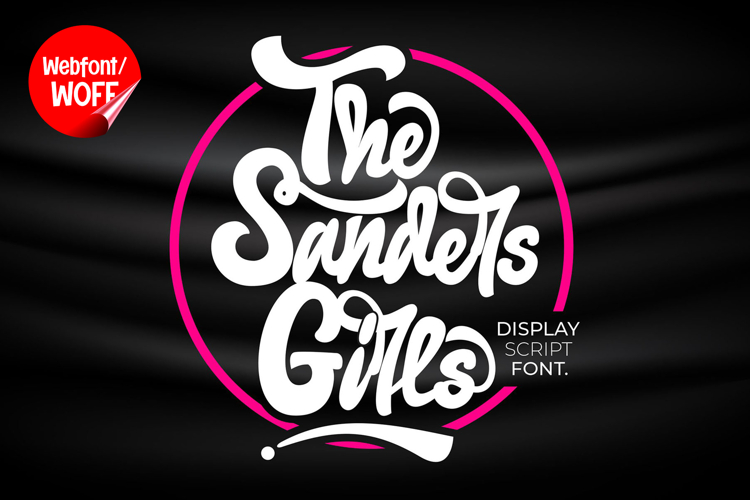
The Sanders Girl | Bold Script Retro Webfont for Stylish Web
The Sanders Girl is a bold script retro webfont designed to bring a nostalgic yet stylish touch into modern website design. Inspired by vintage lettering and classic signage, this font features smooth curves, thick strokes, and flowing connections that create a warm and expressive visual style. It is an excellent choice for projects that aim to deliver a charming retro atmosphere with a modern digital feel.
The Sanders Girl includes a complete set of uppercase characters designed with bold script forms. The letterforms are crafted with elegant curves and natural flow, creating a smooth and connected appearance. These expressive shapes are ideal for headlines, banners, hero sections, and featured content where a strong and stylish presence is needed. The retro influence adds character and personality, making designs feel more engaging.
In addition to letters, the font includes numbers and punctuation, allowing flexible usage across various parts of a website. It works well for branding text, product highlights, promotional content, and call-to-action sections. Each character maintains a consistent script style, ensuring a cohesive and unified visual identity throughout the layout.
With multilingual support, The Sanders Girl includes a wide range of accented characters, making it suitable for international websites and global audiences. This allows content to be displayed clearly across different languages while preserving the elegant retro aesthetic.
The bold script retro style of The Sanders Girl makes it especially suitable for lifestyle websites, fashion brands, beauty products, creative portfolios, and vintage-themed projects. Its smooth and flowing design adds a sense of elegance and warmth, helping websites stand out in a stylish and memorable way. The retro character also enhances branding that focuses on authenticity and charm.
Despite its decorative and flowing appearance, The Sanders Girl is designed with readability in mind. The spacing and proportions are carefully balanced to ensure clarity, particularly in display sizes. This makes it effective for impactful headings and short text elements where both style and usability are important.
The Sanders Girl is a webfont that combines retro inspiration with bold script elegance and modern digital functionality. Its smooth curves, expressive strokes, and nostalgic charm create a distinctive typographic presence that enhances website design. For projects that require a stylish, vintage-inspired, and visually engaging font, The Sanders Girl offers a reliable and impactful solution.